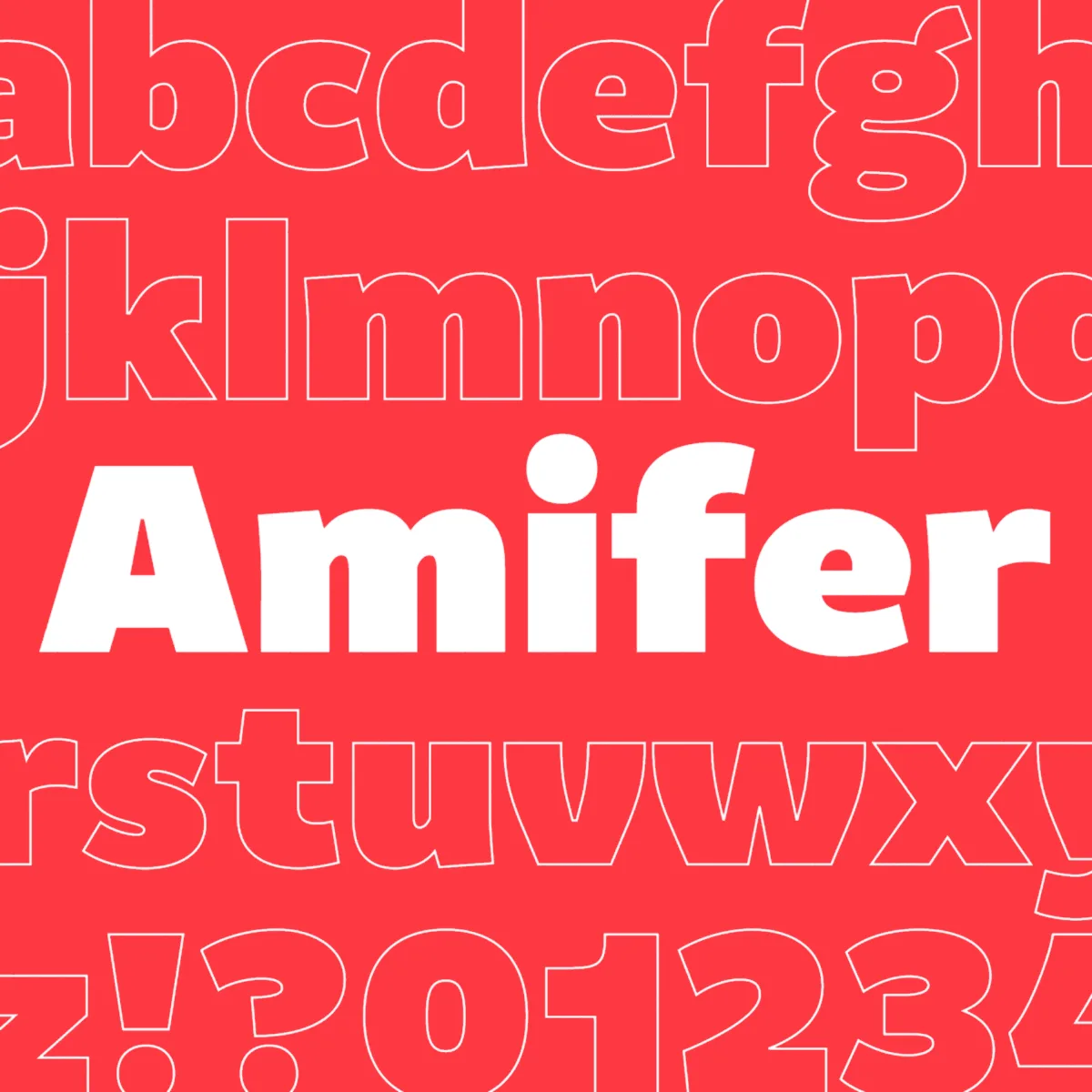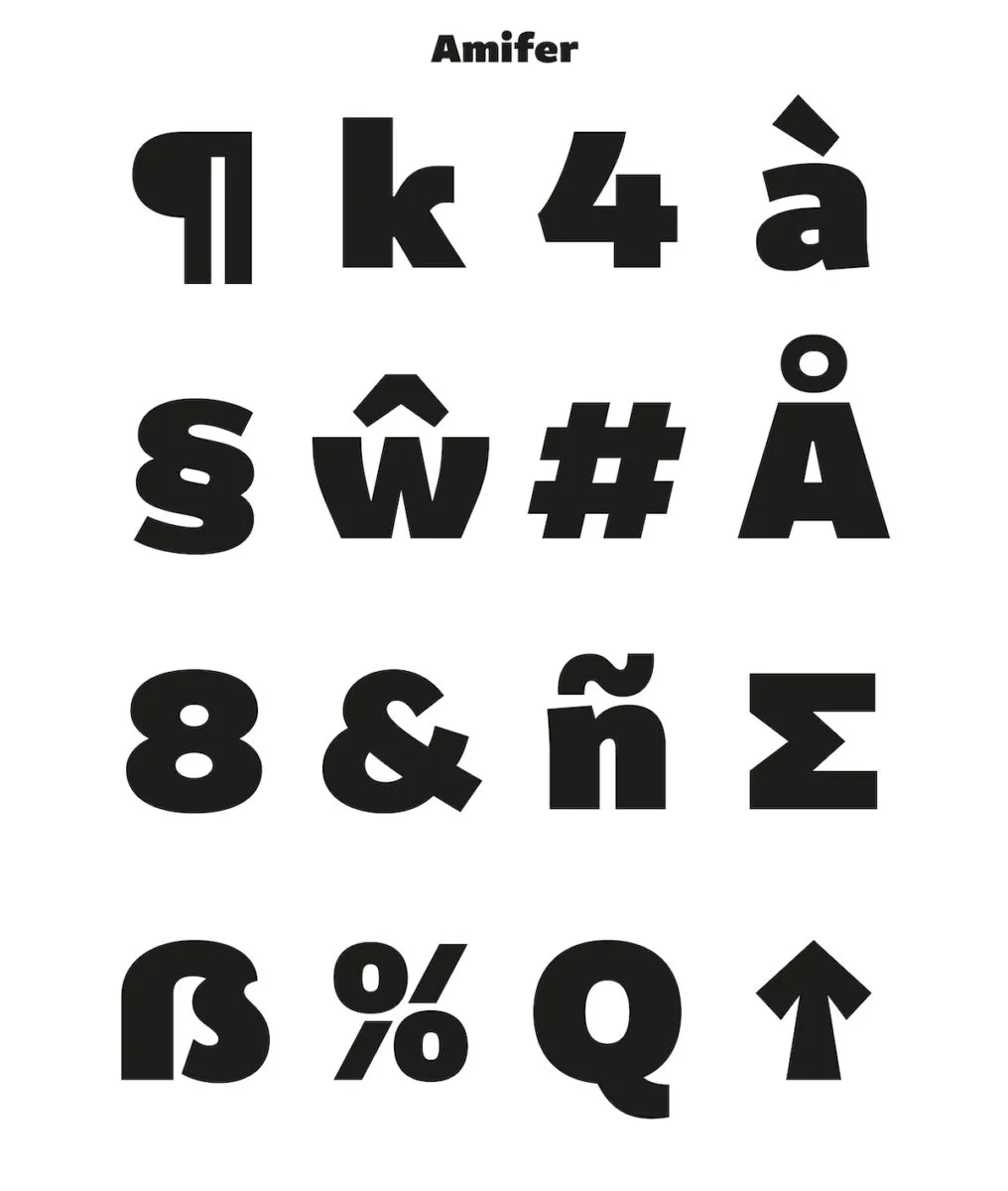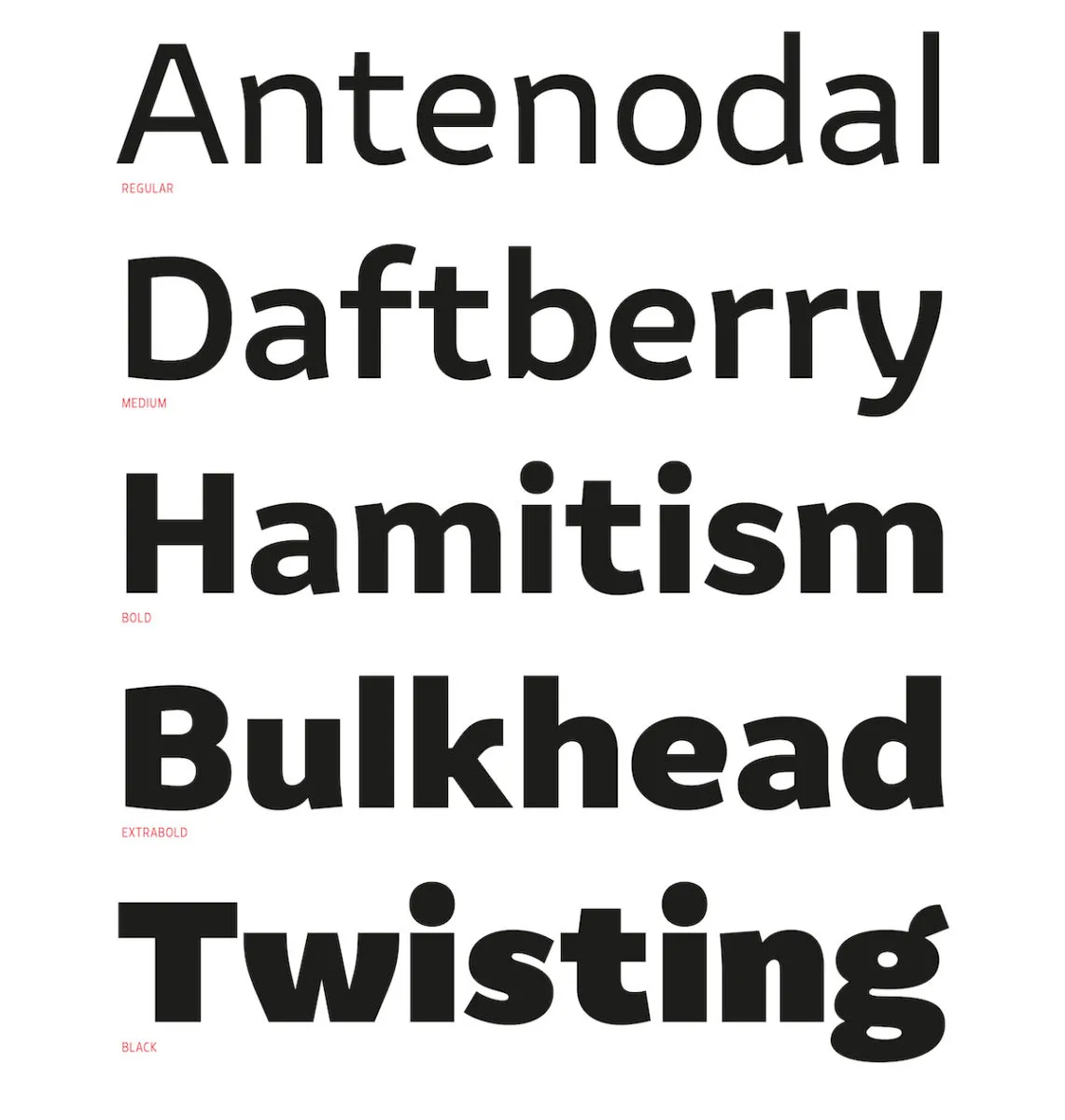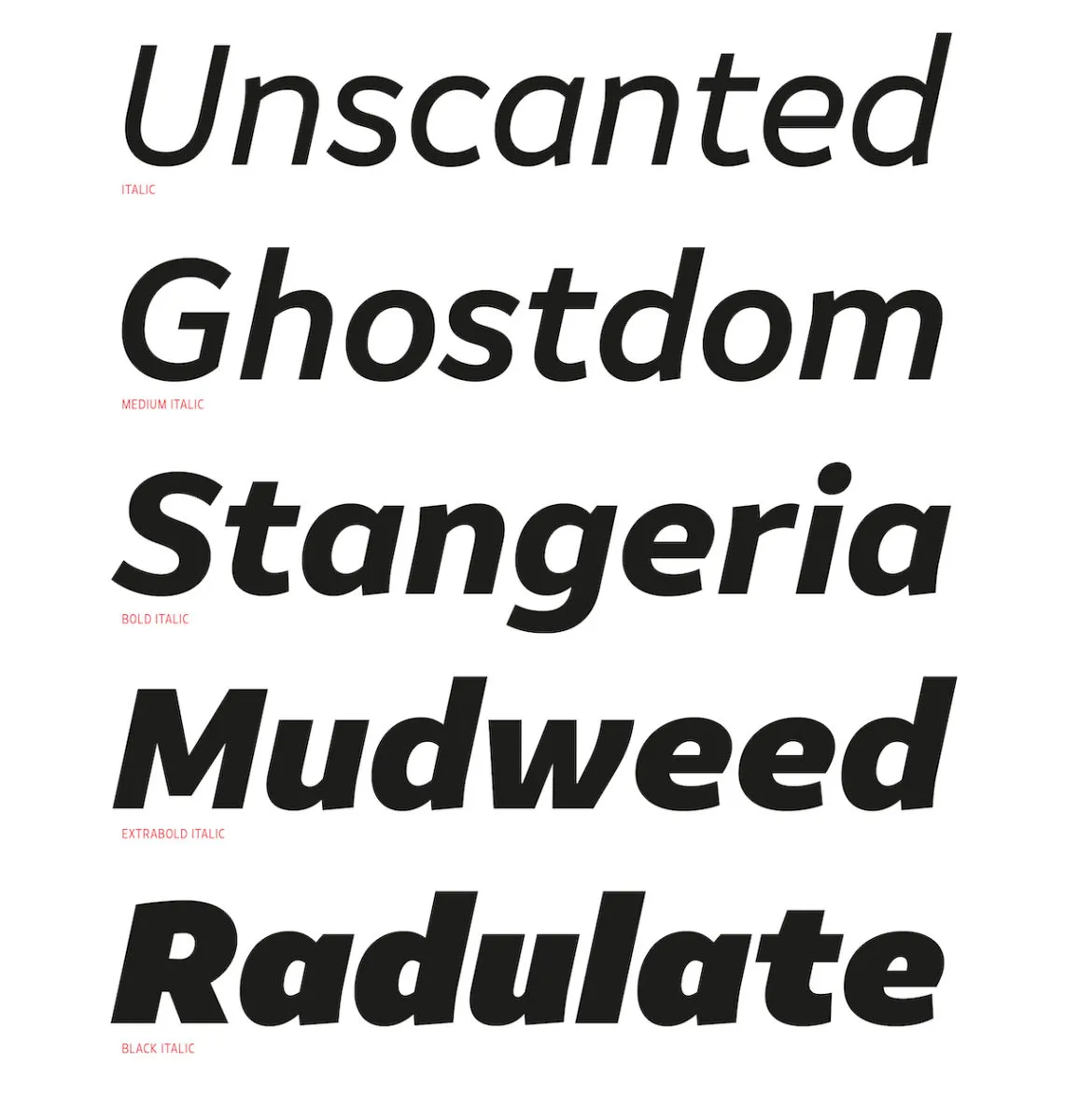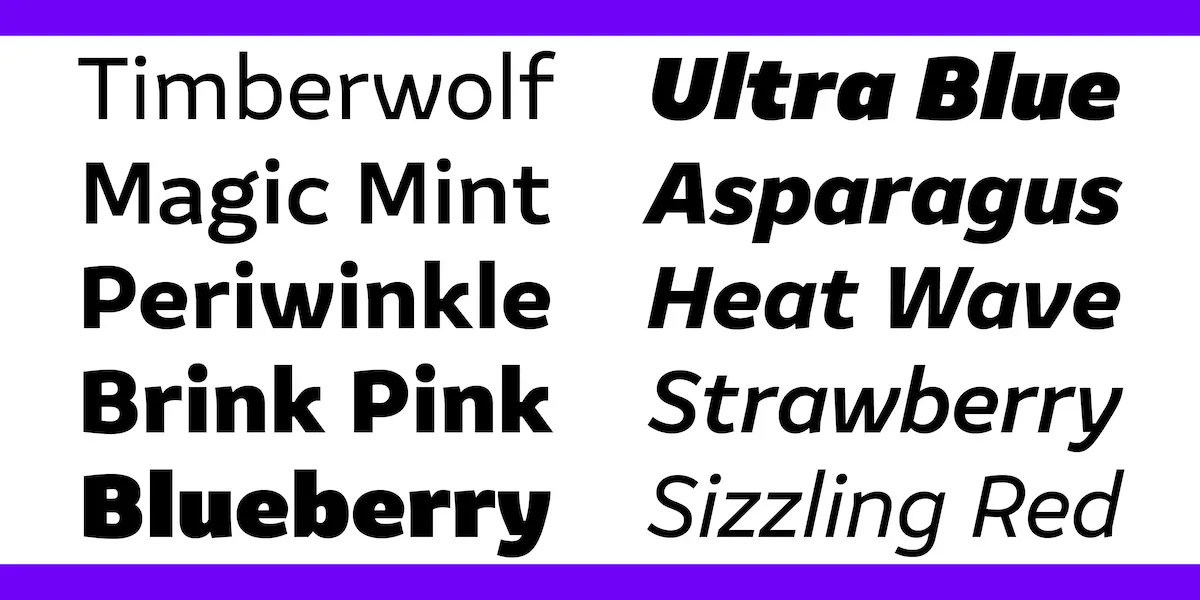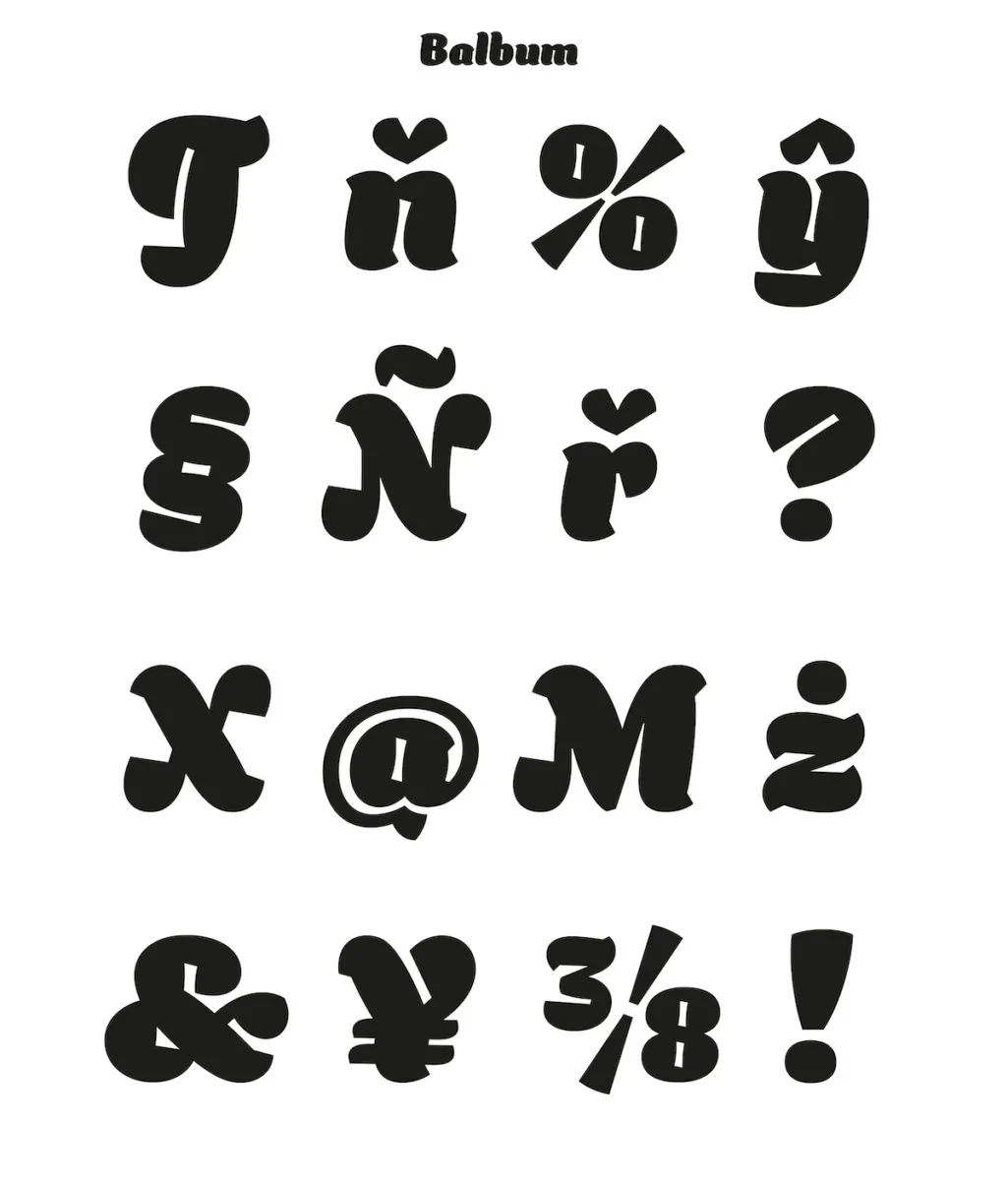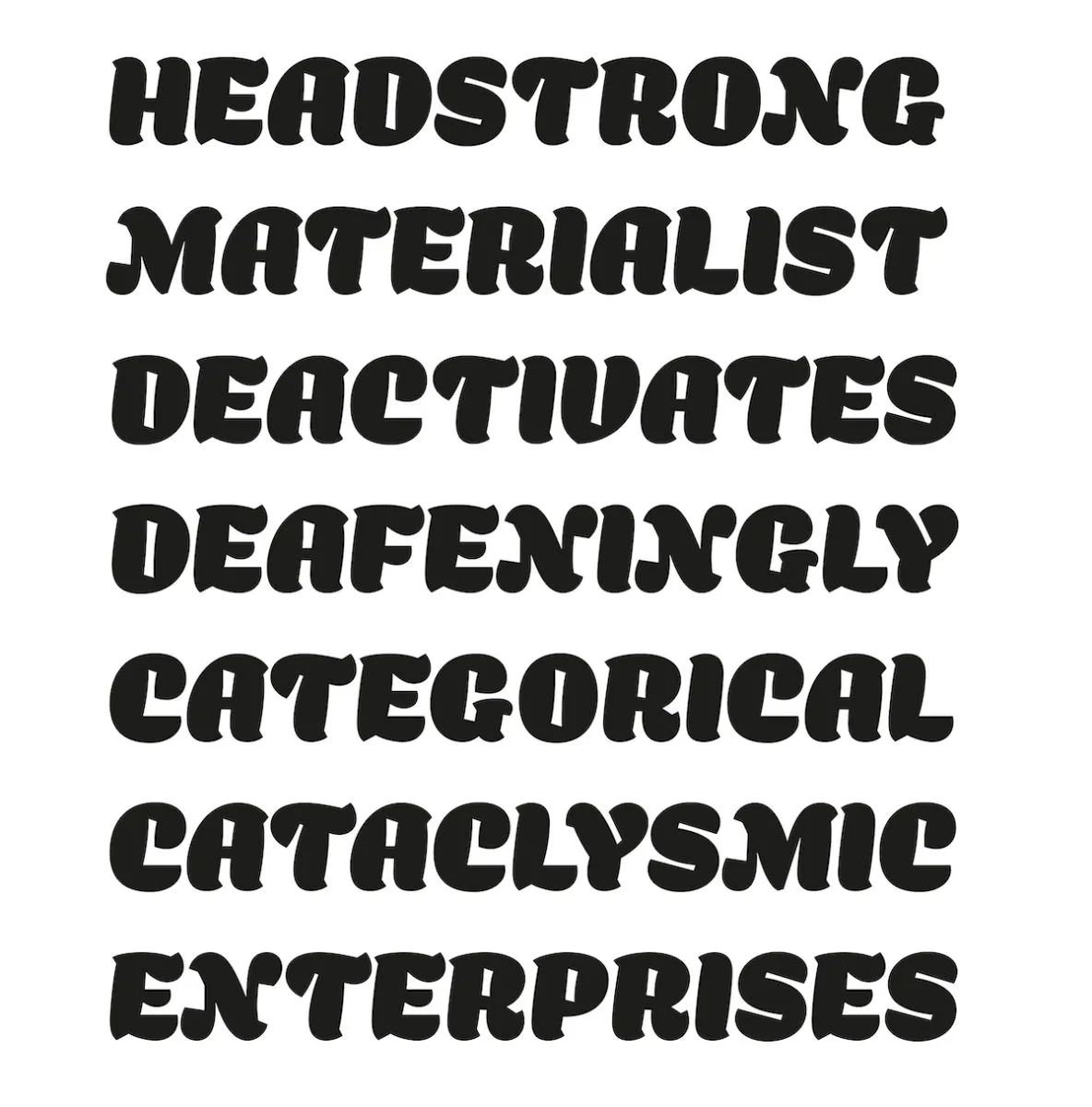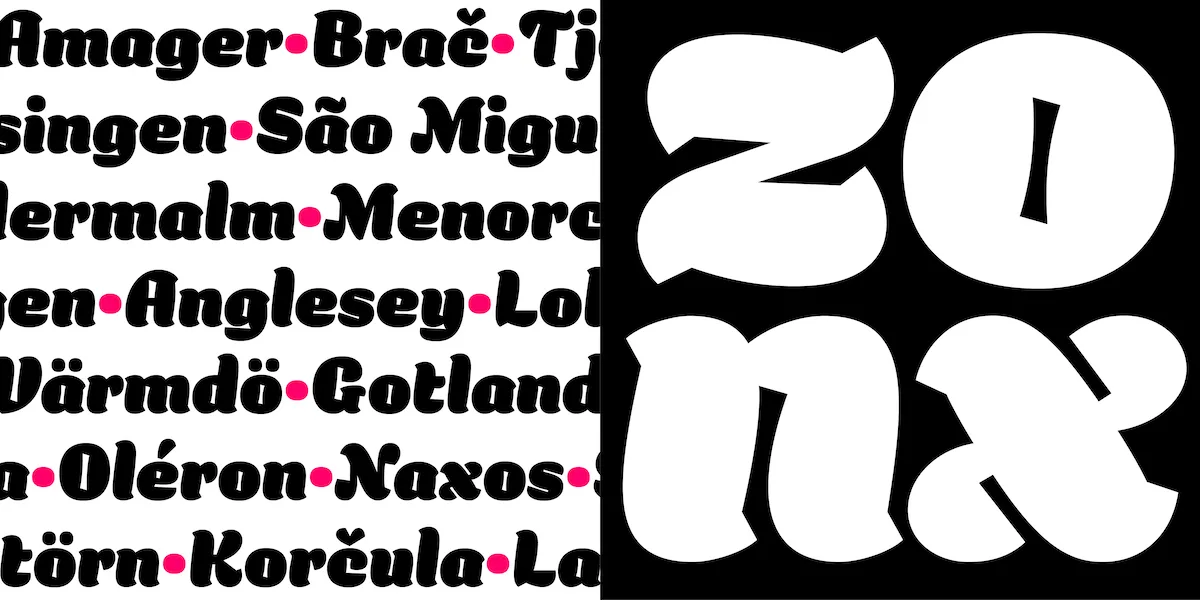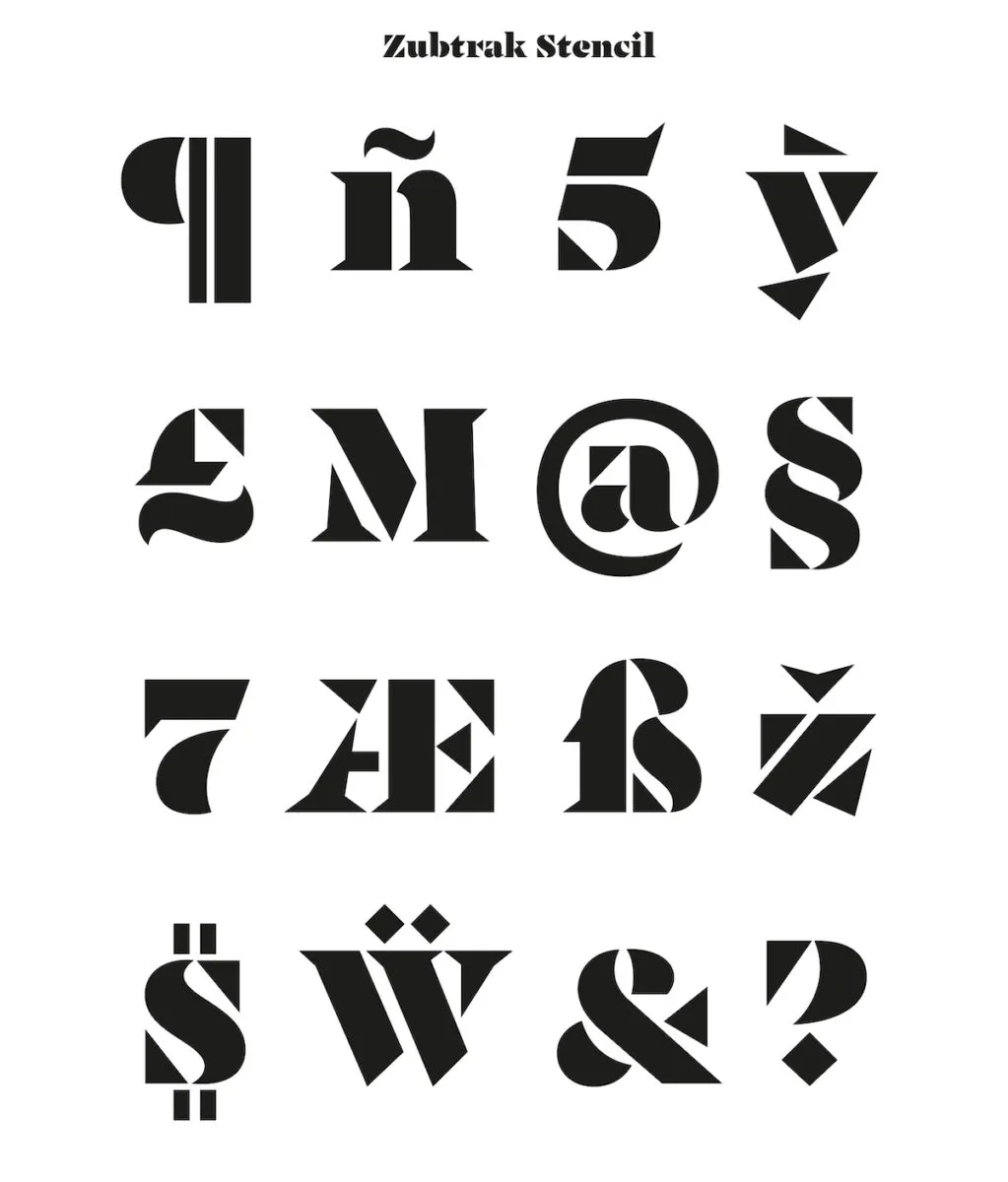
Having worked on freelance and collaborative design projects for ten years, type designers Alessia Mazzarella and Vaibhav Singh have taken the plunge to launch a new website for their independent retail font library, under the banner of Typeland (@typeland). Based in London, Typeland originally established itself as a design studio centring around custom typefaces, multi-script type and branding projects. So, this latest development — which offers exclusive retail fonts through the new Typeland website — looks to be pretty exciting. Through their partnership, the designers explain their aim is to offer ‘exciting new options for multi-script typography, as well as for display fonts’, and to kick off their website launch, they’re also offering three exclusive, newly released fonts.
Typeland’s characteristic approach encompasses a no-nonsense attitude to type design and a ‘wry sense of humour’. Their practice is infused with the aim to create and distribute fonts for what they’re worth — ‘no hyperbolic claims, no fluffy descriptions, no contrived process stories’. And we believe them… The duo of designers have a vast bank experience and expertise behind them, meaning we can only expect 100% top quality fonts from this new endeavour.
With several years of experience in font engineering, font mastering and quality assurance, Alessia Mazzarella is a type designer whose career has spanned across a plethora of creative type-based facets. She has worked as a senior type designer at Fontsmith and senior font develop at Northern Block, as well as developed original typefaces for URW Asterisk and Google; including multi-script families. Alessia also holds degrees in Typeface Design from the University of Reading, Graphic Design from Central Saint Martins and Graphic & Media Design from Sapienza, University of Rome.
Likewise, Vaibhav Singh is a typographer and typeface designer specialising in multi-script typography with masses of experience behind him. His wide spanning career over the last decade has seen him delve into freelance practices across graphic design, book design and exhibition design in Mumbai, Delhi, Panjim, Reading and London. Having gained an MA and PhD from the University of Reading, Vaibhav focuses on designing typefaces for Indian scripts as well as developing original Latin typefaces and has worked with the likes of Adobe, Google, Monotype, Rosetta, TypeTogether, and URW Asterisk.
With their new website launch, the duo are also introducing three new stunning typefaces available exclusively through Typeland; Amifer, a 10-style sans serif design; Balbum, a rotund one-weight display font; and Zubtrak, a stencil in two extreme styles. The three new fonts, in the duo’s words, ‘demonstrate unapologetic enjoyment and stylistic versatility in the design of letterforms’.